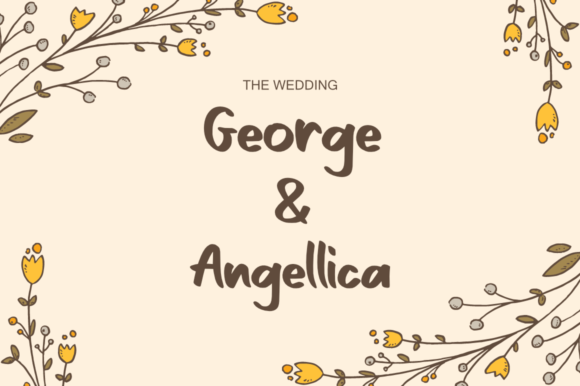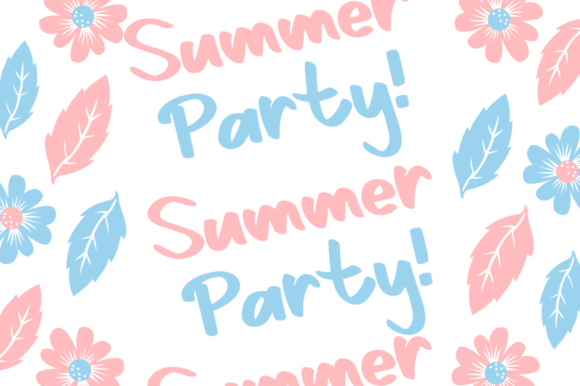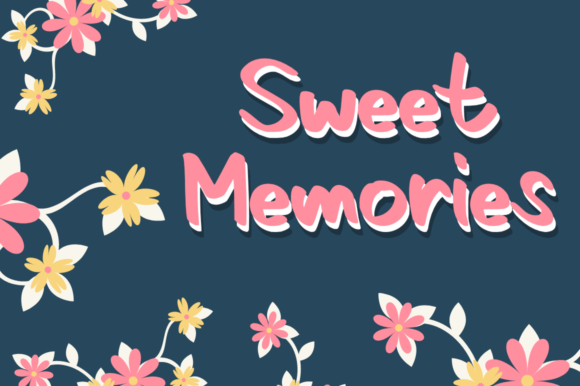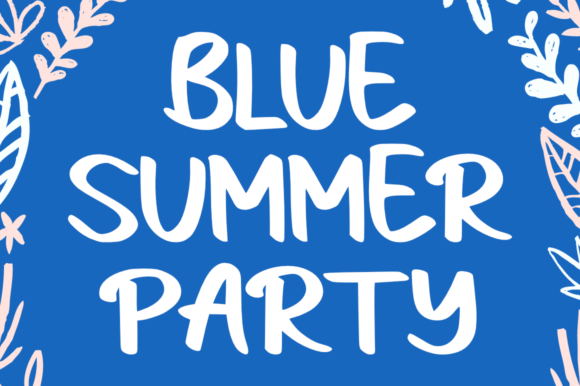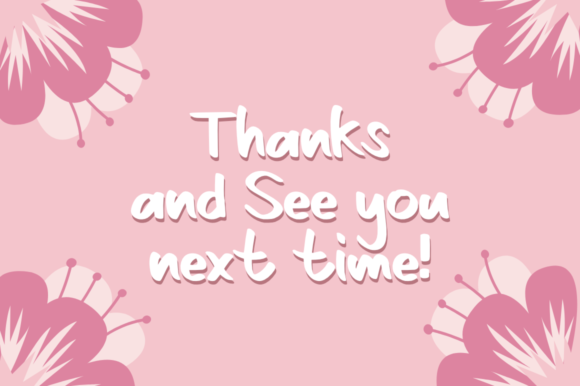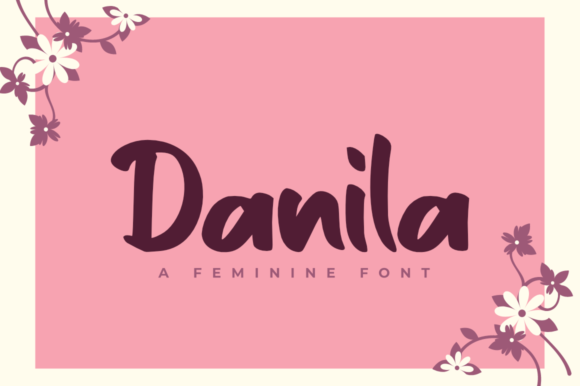
Introducing Danila Font: The Perfect Handwritten Font for Your Design Projects
Are you tired of using the same old fonts in your design projects? Do you want to add a touch of personality and whimsy to your creations? Look no further than Danila Font, a simple and flowing handwritten font that’s perfect for a variety of design ideas. In this article, we’ll take a closer look at Danila Font and explore its features, benefits, and uses.
What is Danila Font?
Danila Font is a beautiful, handwritten font that’s designed to be adaptable and versatile. Its simple, flowing lines make it perfect for a wide range of design projects, from invitations and greeting cards to posters, flyers, and more. Whether you’re a designer, crafter, or DIY enthusiast, Danila Font is a great choice for adding a fun and friendly touch to your creations.
Features of Danila Font
So, what makes Danila Font so special? Here are just a few of its key features:
- Simple and flowing lines: Danila Font features simple, flowing lines that give it a friendly and approachable feel.
- Adaptable: This font is designed to be versatile and adaptable, making it perfect for a wide range of design projects.
- Handwritten style: Danila Font has a beautiful, handwritten style that’s perfect for adding a personal touch to your designs.
- Easy to read: Despite its playful style, Danila Font is easy to read, making it perfect for use in body text and other applications where readability is important.
Benefits of Using Danila Font
So, why should you choose Danila Font for your design projects? Here are just a few of the benefits of using this amazing font:
- Adds a fun and friendly touch: Danila Font is perfect for adding a playful, friendly touch to your designs.
- Versatile: This font can be used in a wide range of design projects, from formal to informal applications.
- Unique and creative: With Danila Font, you can add a unique and creative touch to your designs that will help them stand out from the crowd.
Uses for Danila Font
So, what can you use Danila Font for? The possibilities are endless! Here are just a few ideas to get you started:
- Invitations and greeting cards: Danila Font is perfect for creating beautiful, handmade invitations and greeting cards.
- Posters and flyers: This font is great for creating eye-catching posters and flyers that will grab attention.
- Social media graphics: Danila Font can be used to create fun and engaging social media graphics that will help your brand stand out.
- Branding and packaging: This font can be used in branding and packaging applications to add a personal touch to your products.
Tips for Using Danila Font
Here are a few tips for getting the most out of Danila Font:
- Experiment with different colors and textures: Danila Font looks great in a variety of colors and textures, so don’t be afraid to experiment and find the perfect combination for your design.
- Use it with other fonts: Danila Font can be paired with other fonts to create a unique and interesting look.
- Keep it simple: Don’t overcomplicate your design – Danila Font is perfect for simple, elegant designs that get the job done.
In conclusion, Danila Font is a simple and flowing handwritten font that’s perfect for a variety of design projects. Its adaptable style, easy readability, and fun and friendly vibe make it a great choice for designers, crafters, and DIY enthusiasts alike. Whether you’re creating invitations, posters, social media graphics, or branding materials, Danila Font is a great choice for adding a personal touch to your designs. So why not give it a try and see what amazing creations you can come up with?